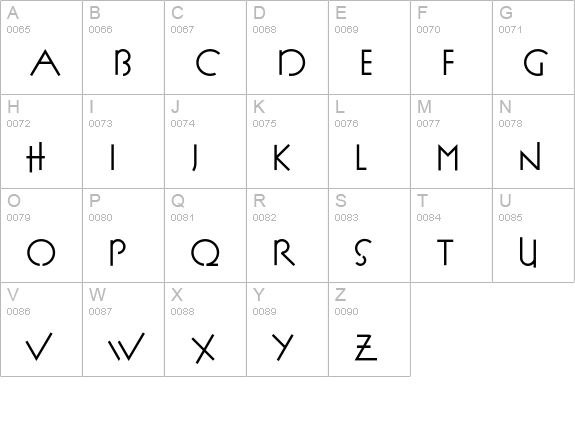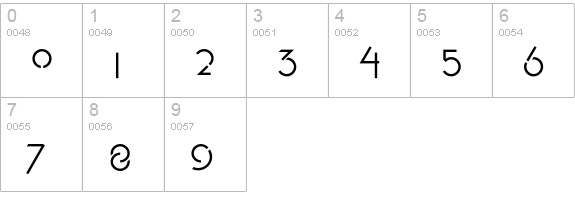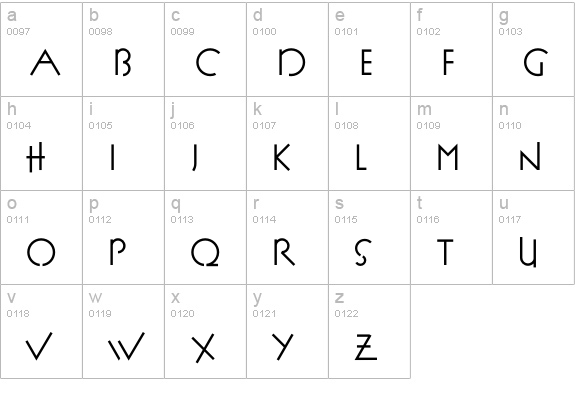
P22FLLWExhibition-Regular Font Details
P22FLLWExhibition-Regular is the standard, neutral variant in the P22FLLWExhibition typeface family \xE2\x80\x94 well suited to general body text, paragraphs, and standard typographic work.
P22FLLWExhibition-Regular is a captivating and versatile font that is sure to make a statement in any design project. With its bold and dynamic letterforms, this font exudes a sense of confidence and modernity. Its clean lines and sleek curves give it a contemporary feel, while still maintaining a classic elegance. The P22FLLWExhibition-Regular font is perfect for a wide range of applications, from branding and advertising to editorial design and social media graphics. Its distinctive style will instantly grab the attention of viewers and create a lasting impression. One of the best things about P22FLLWExhibition-Regular is that it is free to download at FontsMarket.com. This means that you can easily access and use this incredible font without any restrictions. Whether you are a professional designer or simply someone looking to add a touch of creativity to your personal projects, this font is a must-have. The versatility of P22FLLWExhibition-Regular is further enhanced by its extensive character set. With uppercase and lowercase letters, numbers, punctuation marks, and special characters, you have all the tools you need to create stunning and unique designs. In addition to its aesthetic appeal, P22FLLWExhibition-Regular also offers excellent legibility, ensuring that your message is conveyed clearly and effectively. Its balanced spacing and proportions make it easy to read, even in small sizes or on screens. So why wait? Download P22FLLWExhibition-Regular today and unleash your creativity. With its powerful presence and freely available nature, this font is bound to elevate your designs to new heights. Whether you are designing a logo, a poster, or a website, P22FLLWExhibition-Regular is the perfect choice to make a bold statement.